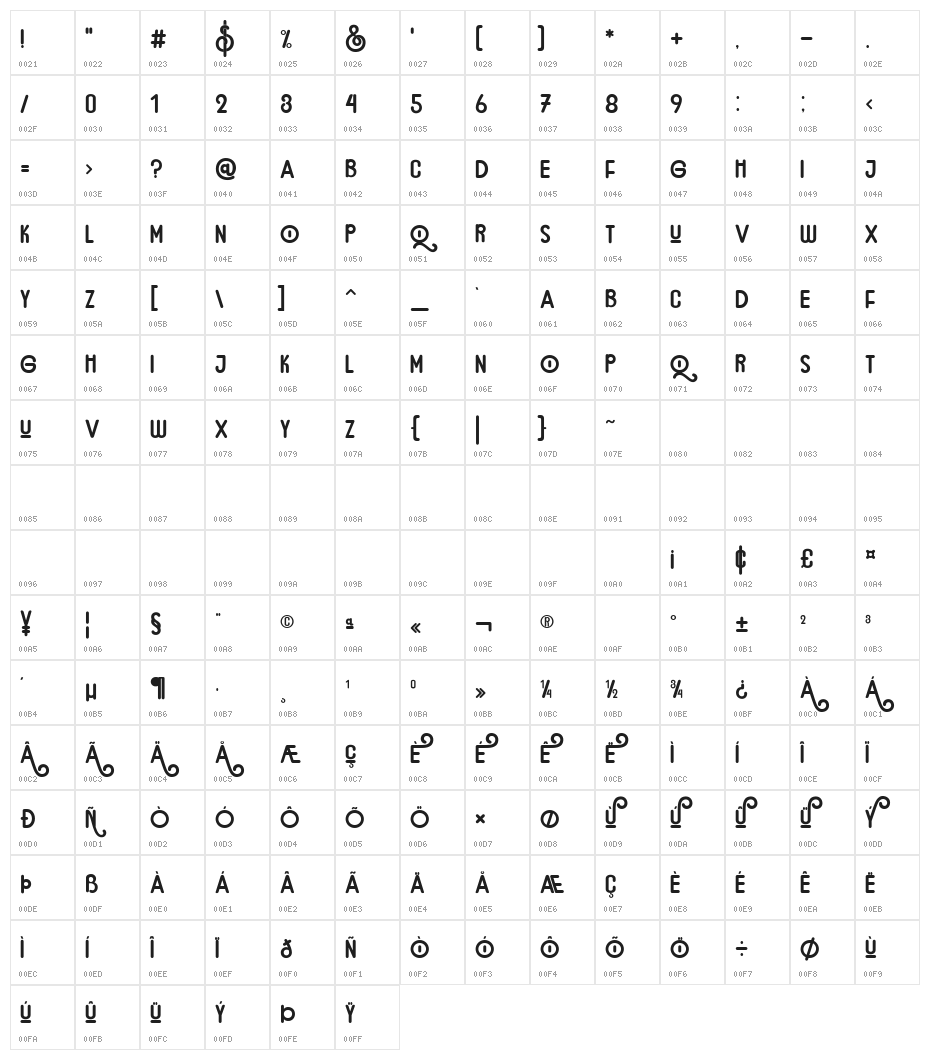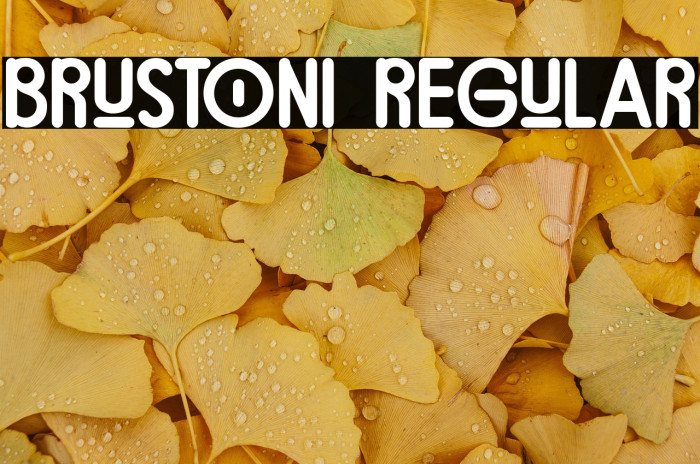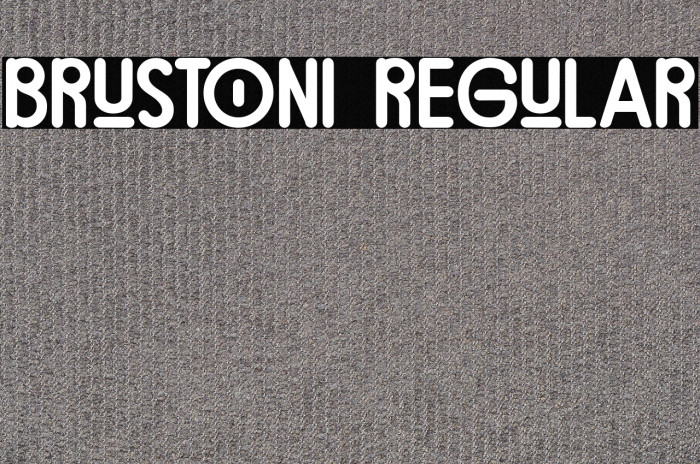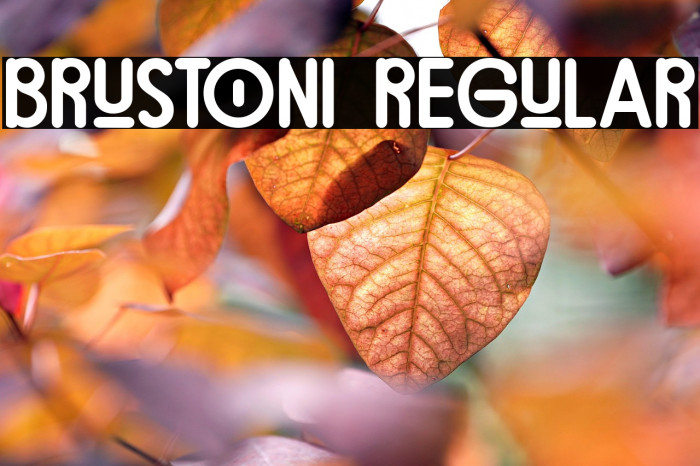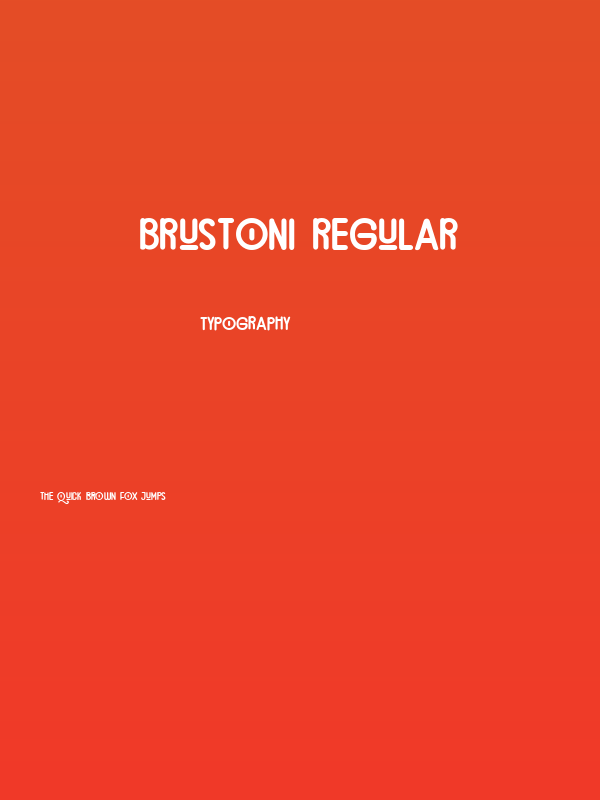
brustoni Regular Font
brustoni Regular Description
This font features a unique and playful design with a modern twist. The characters are bold and rounded, giving a friendly and approachable appearance. Notably, the letters 'O' and 'Q' have distinctive inner circles, adding a quirky element to the overall style. The font maintains consistent stroke thickness throughout, ensuring readability while retaining its decorative flair. The numerals and special characters follow the same design principles, making them cohesive with the alphabet. This font is ideal for projects that require a touch of creativity and modernity.